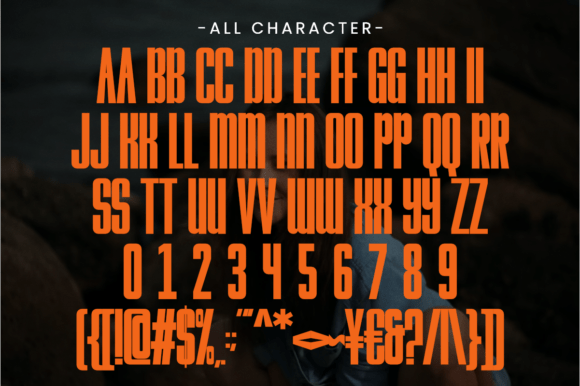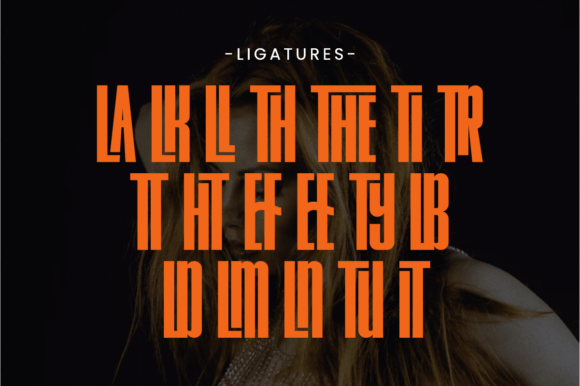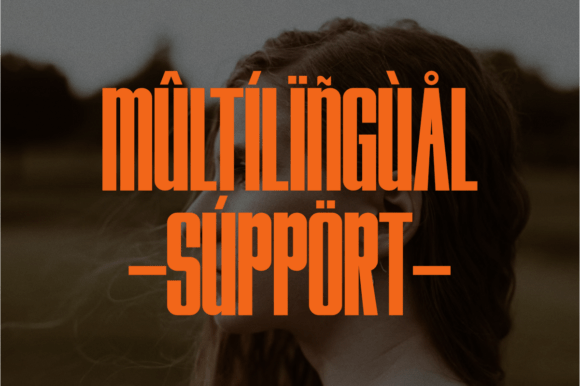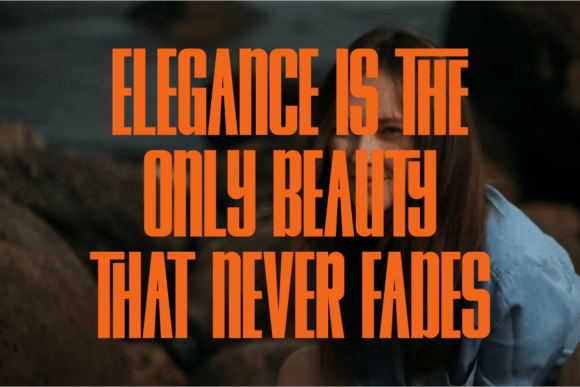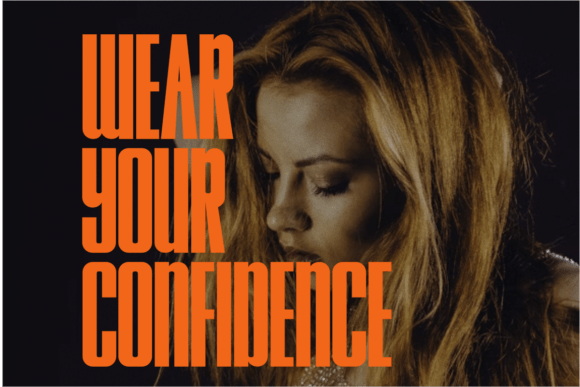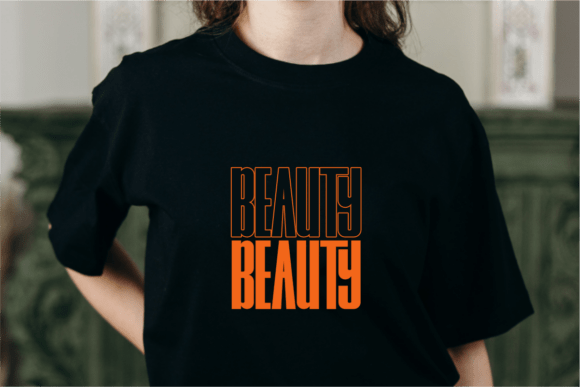
Glamour Font: Elevate Your Designs with Elegance and Strength
In the world of typography, fonts play a crucial role in conveying the tone and personality of a brand or design. For those seeking a modern, stylish, and powerful font, Glamour is an excellent choice. This bold condensed sans serif font is designed to make a statement, combining elegance with strength to create a truly glamorous touch.
What is Glamour Font?
Glamour is a bold condensed sans serif font that boasts a modern and stylish appearance. Its tall, narrow letterforms give it a sleek, contemporary look that is perfect for a variety of design applications. From fashion branding and magazine headlines to logos, posters, packaging, and social media graphics, Glamour is the ideal font for designers and crafters looking to add a touch of sophistication and glamour to their work.
Key Features of Glamour Font
- Bold and Condensed: Glamour’s bold and condensed design makes it perfect for headlines, titles, and short texts that require a strong visual impact.
- Sans Serif: The font’s sans serif design gives it a clean and modern look that is easy to read, even at small sizes.
- Tall and Narrow Letterforms: Glamour’s tall and narrow letterforms create a sleek and elegant appearance that is ideal for fashion and luxury brands.
- Modern and Stylish: The font’s modern and stylish design makes it perfect for designers and crafters looking to create contemporary and trendy designs.
Use Cases for Glamour Font
Glamour is a versatile font that can be used in a variety of design applications, including:
- Fashion Branding: Glamour’s elegant and sophisticated design makes it perfect for fashion brands looking to create a luxurious and high-end image.
- Magazine Headlines: The font’s bold and condensed design makes it ideal for magazine headlines, giving readers a clear and attention-grabbing title.
- Logos: Glamour’s unique and stylish design makes it perfect for logos that require a strong and memorable visual identity.
- Posters: The font’s bold and eye-catching design makes it ideal for posters, giving viewers a clear and impactful message.
- Packaging: Glamour’s modern and stylish design makes it perfect for packaging designs that require a sophisticated and elegant look.
- Social Media Graphics: The font’s clean and modern design makes it ideal for social media graphics, giving viewers a clear and engaging visual message.
Why Choose Glamour Font?
There are many reasons why designers and crafters should choose Glamour font for their designs:
- Elegance and Strength: Glamour combines elegance with strength, making it an excellent choice for projects that need a powerful and glamorous touch.
- Versatility: The font’s versatility makes it perfect for a variety of design applications, from fashion branding to social media graphics.
- Modern and Stylish: Glamour’s modern and stylish design makes it perfect for designers and crafters looking to create contemporary and trendy designs.
- Easy to Read: The font’s clean and sans serif design makes it easy to read, even at small sizes.
| Font Name | Glamour Font |
| Author | Funtype Co. |
In conclusion, Glamour font is an excellent choice for designers and crafters looking to add a touch of elegance and strength to their designs. Its bold and condensed design, combined with its modern and stylish appearance, makes it perfect for a variety of design applications. Whether you’re working on fashion branding, magazine headlines, logos, posters, packaging, or social media graphics, Glamour is the ideal font to elevate your designs and make a statement.